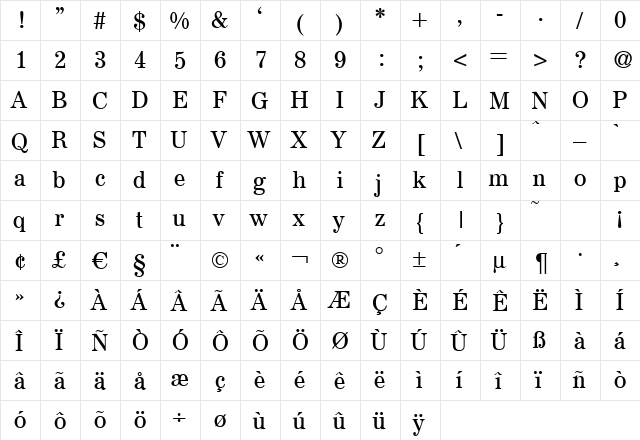
A850-Roman Regular
Design Context for A850-Roman Typeface
A850-Roman takes a measured approach to typography — its balanced proportions and neutral character make it a reliable workhorse for both digital and print work.